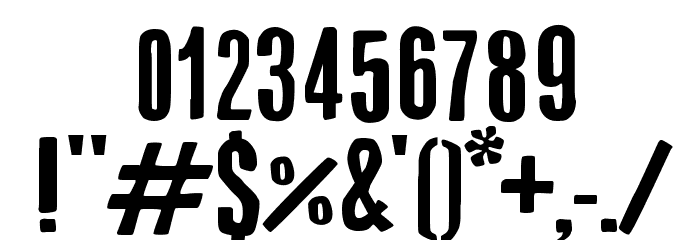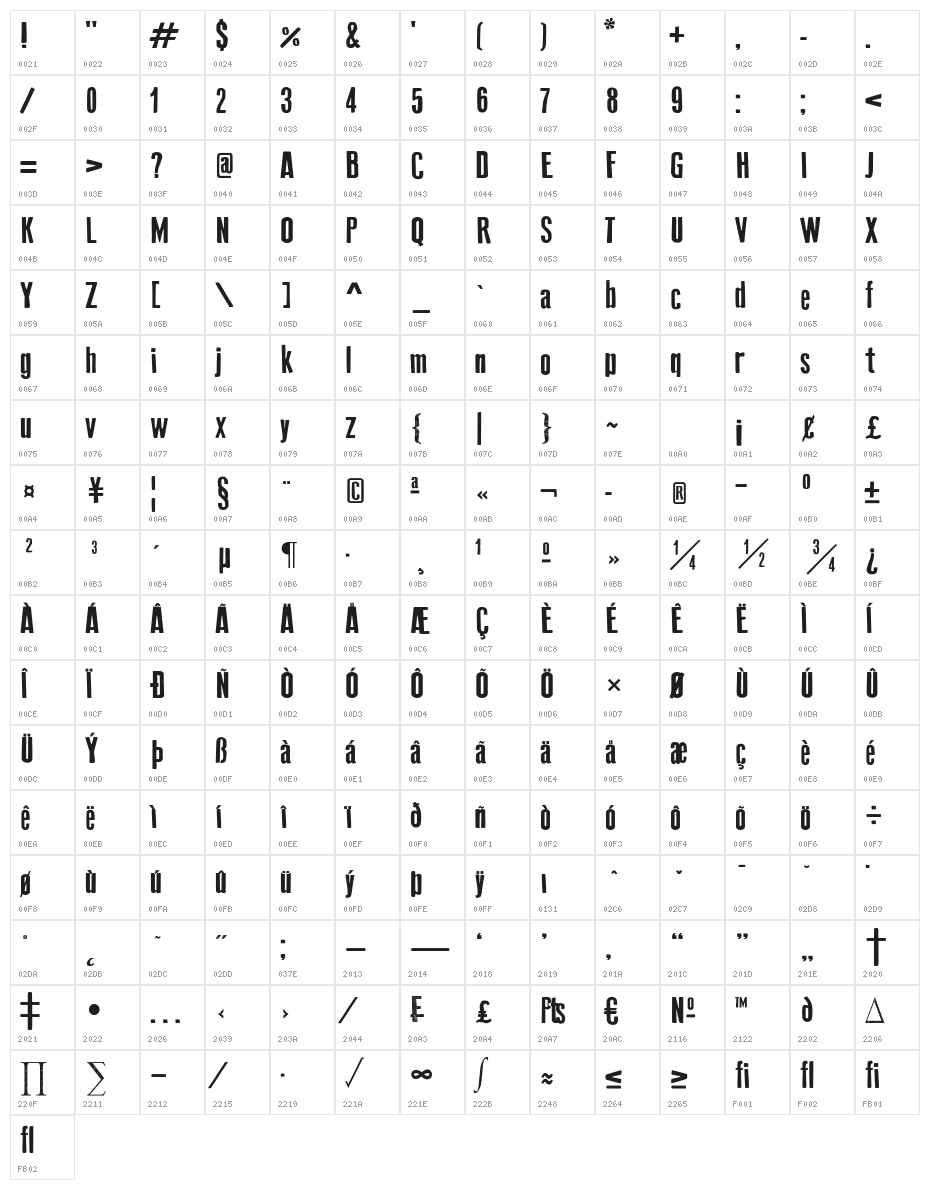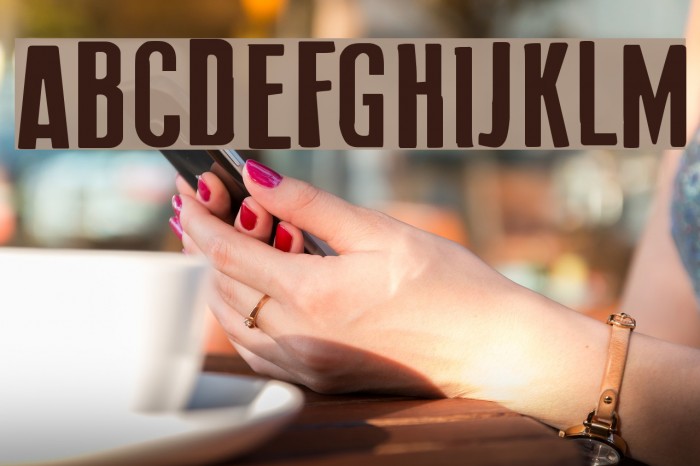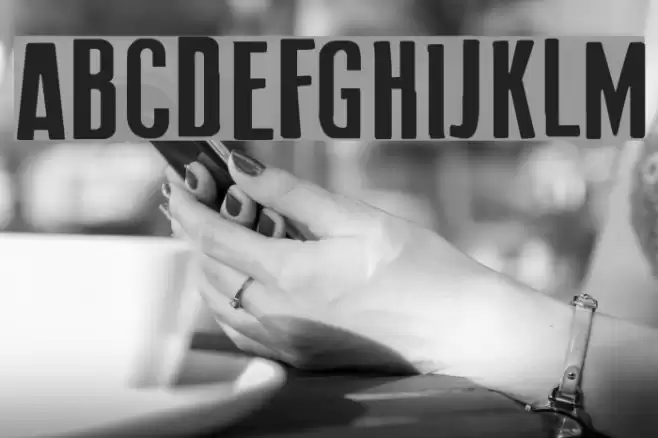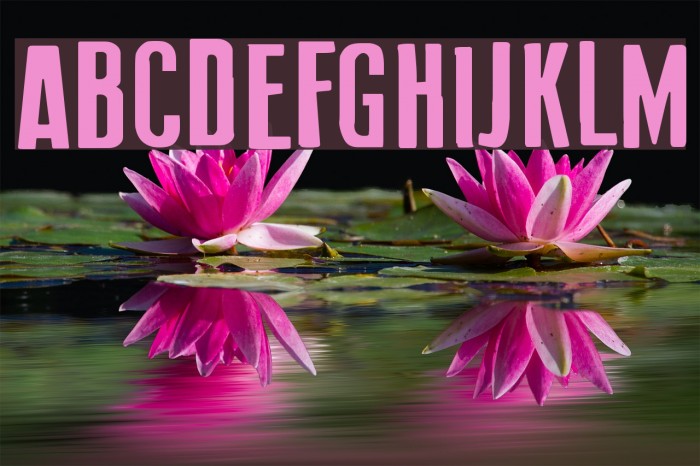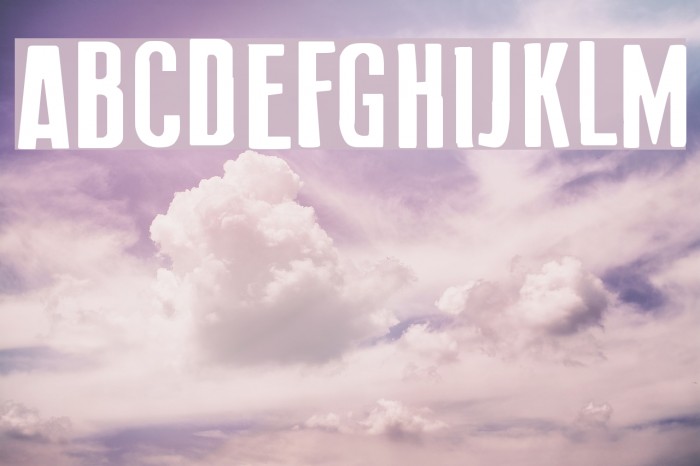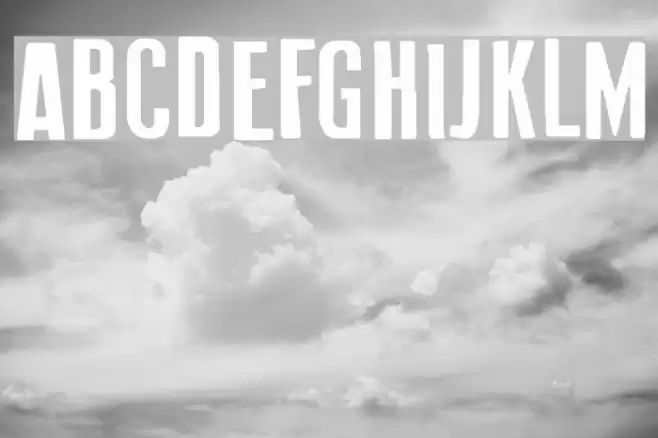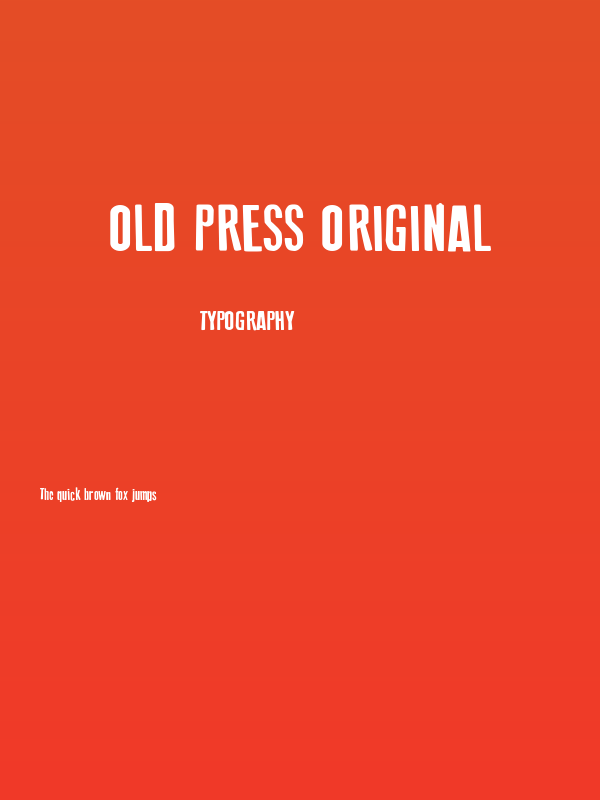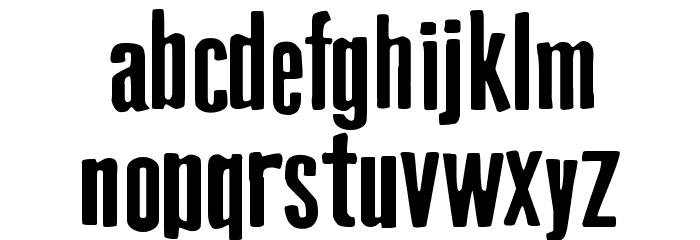
Old Press Original Font
Old Press Original Description
This font features a bold and impactful design with a vintage flair. The characters are tall and slightly condensed, giving them a strong presence. The strokes are thick and consistent, providing a sense of solidity and reliability. The uppercase letters are particularly striking, with a uniform height that enhances readability. The lowercase letters maintain the same boldness, with rounded edges that add a touch of softness to the overall appearance. The numbers are clear and easy to read, matching the style of the letters. Special characters are well-integrated, maintaining the font's cohesive look.
| Proposed Projects | Ideal for projects that require a strong, vintage aesthetic such as posters, logos, branding materials, and headlines. |